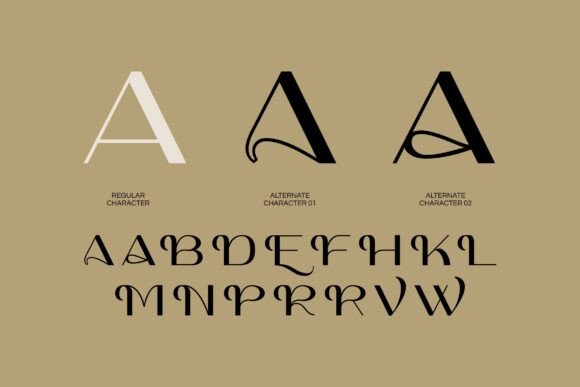
Gracie Aquos Font
Gracie Aquos is a stylish sans serif font that blends simplicity with elegance. Its smooth, clean strokes and natural flow create a refined yet approachable feel. Ideal for branding, social media, and stationery, this graceful typeface adds a modern, personal touch to any design.